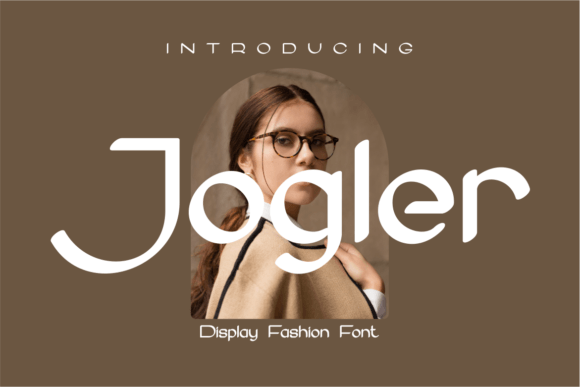
Jogler Font
Introducing Jogler Font, the key to unlocking your fashion logo dreams! Designed with elegance and a touch of femininity, this display font is your perfect partner for creating designs that leave a lasting impression.
With Jogler Font, you'll effortlessly craft logos that exude sophistication and style. Its unique character effortlessly elevates your brand, making you stand out from the crowd. Whether you're designing for fashion houses, boutiques, or lifestyle brands, Jogler Font has the power to transform your vision into reality.
But Jogler Font isn't just limited to logos. Its versatility extends to a wide range of creative projects, including invitations, posters, and social media graphics. Embrace the artistic possibilities and let your imagination soar!
Crafted by the talented hands of Monoletter, Jogler Font is a masterpiece waiting to grace your designs. Don't settle for ordinary fonts - elevate your creativity with Jogler Font today!